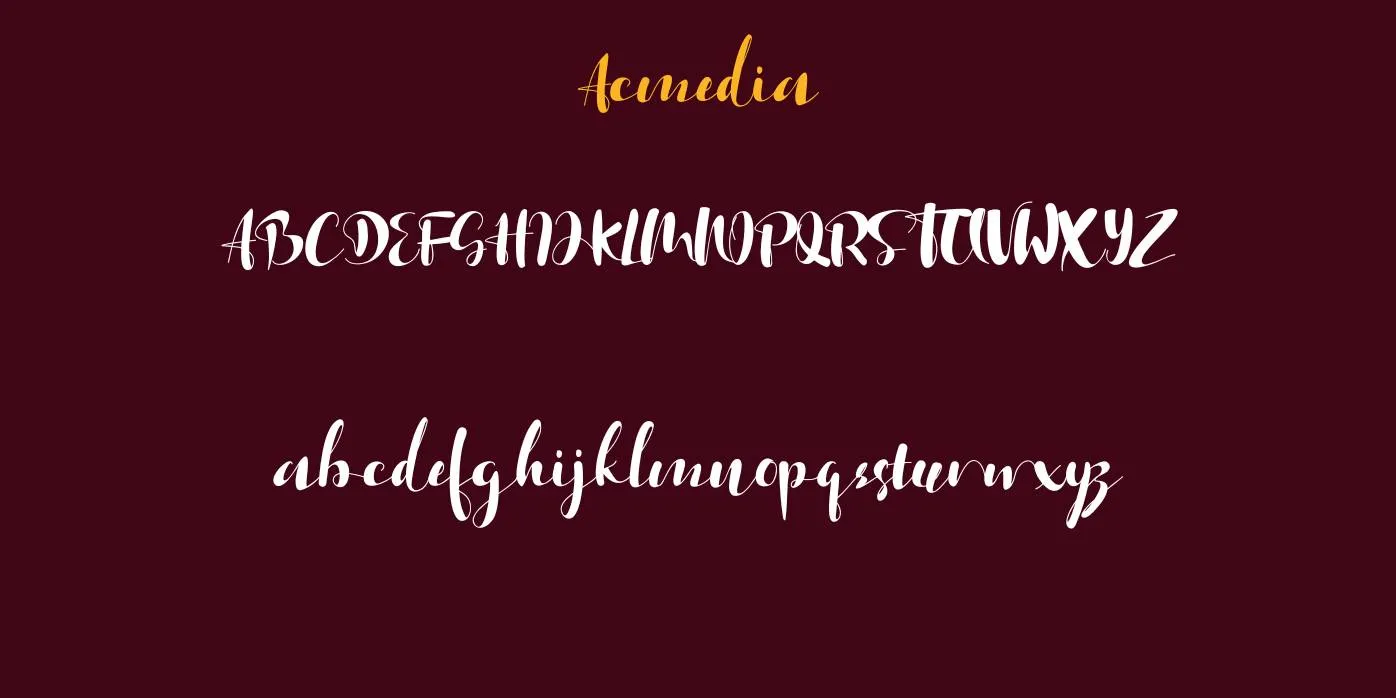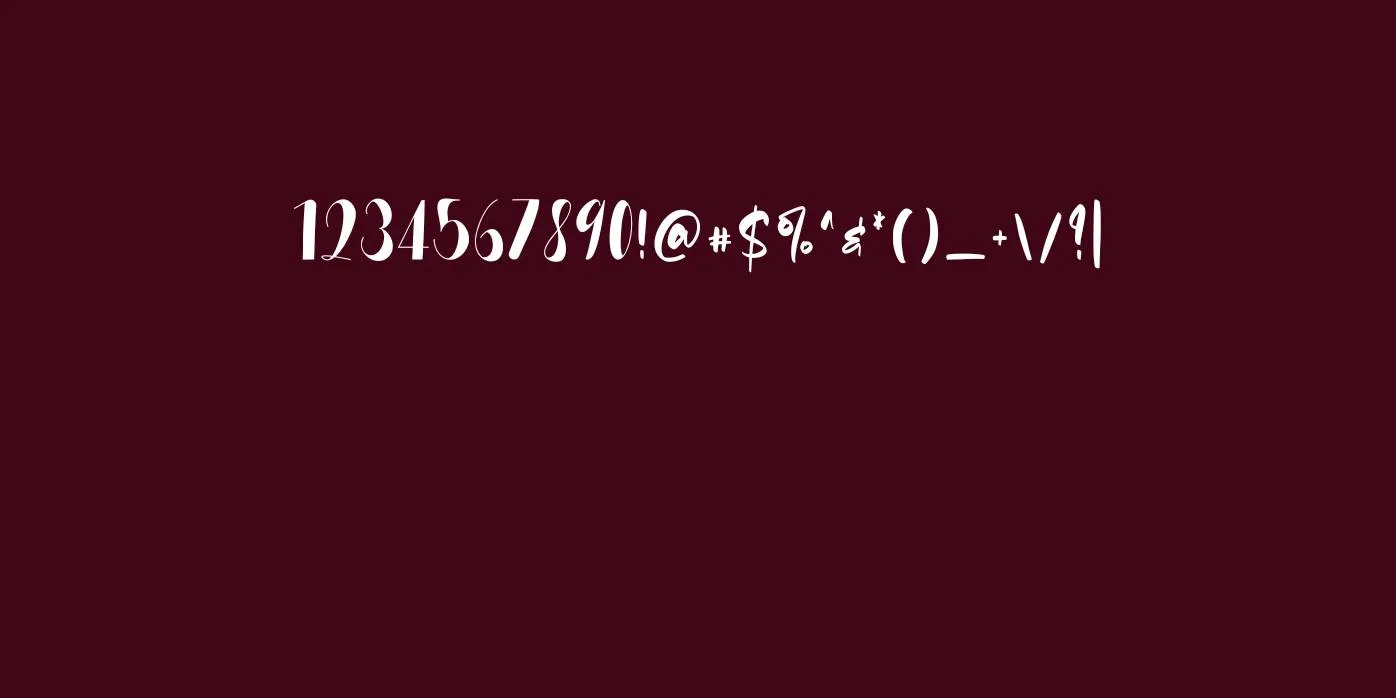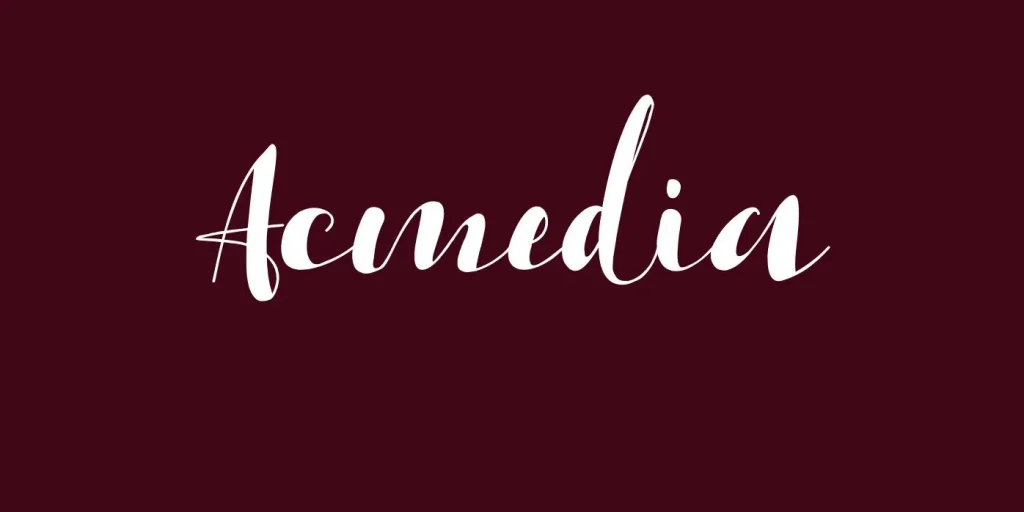
Acmedia Font is a script font that was designed by 177 studios, this typeface has beautiful calligraphy and hand-crafted textures that look super stunning in any content.
This style of lettering has only Regular weight and it also consists of attractive large and small letters, symbols, signs, digits, punctuations, alternates, accents, and some special characters.
Display Of Acmedia Font
If you want to make your design more attractive, stunning, and eye-catching then this font style is the best recommendation for you to use in your presentation/project and make it attention-grabbing and remarkable.
You may pair this stunning texture with raphtalia font. This font is perfect for the formation of titles, symbols, logos, signs, captions, letterheads, banners, articles, posters, journals, headlines, newspapers, book covers, content, video graphics, online ads, branding, tags, publicity, layouts, promotions, leaflets, advertisements, etc.
This font can be applied in the creation of brochures, app development, t-shirts, website designs, headers, printing, footers, themes, billboards, paintings, mug designs, wallpapers, wedding cards, magazines, records, envelopes, flyers, business outlets, report writing, and various other display and projects.
| Designer | 177 studios |
| Style | Script |
What type of font is Acmedia Font?
This typeface is a script font family that was designed by 177 studios.
Is Acmedia Font a good font?
This typeface has beautiful and hand-crafted textures that look super stunning in any content. So, this font is a good option for your next project.
What are the characteristics of Acmedia Font?
This font is a script font that comes with TTF and OTF formats. It has a classy and elegant calligraphy touch in its texture that can give a fresh, lovely, and modern vibe to anything and make it supper fantastic and attention-grabbing.